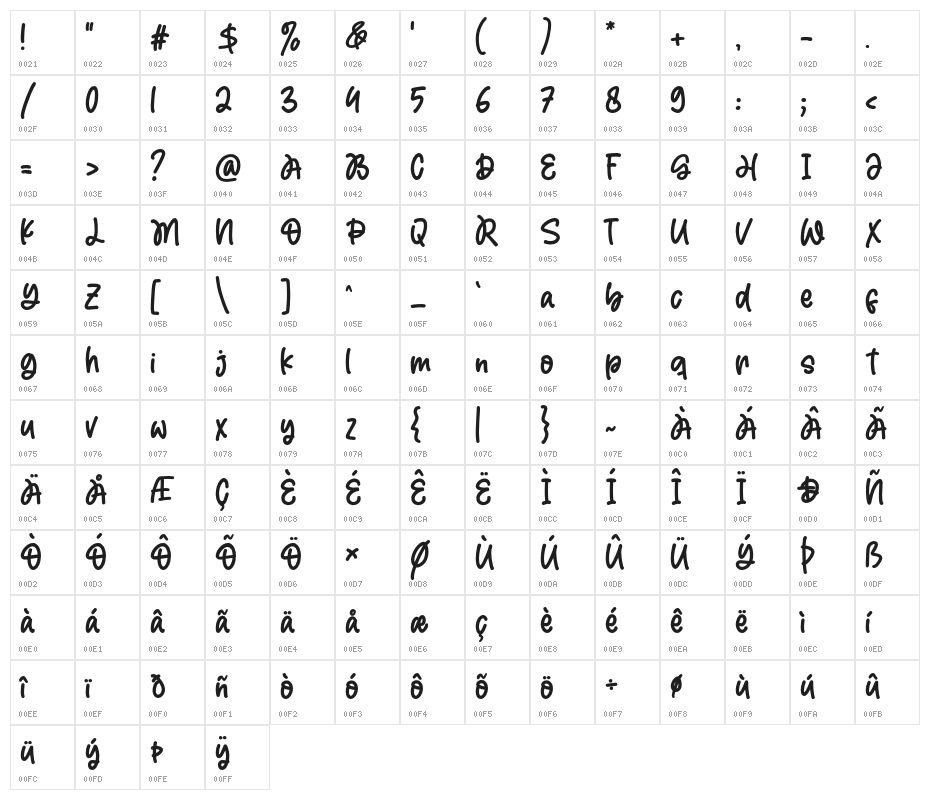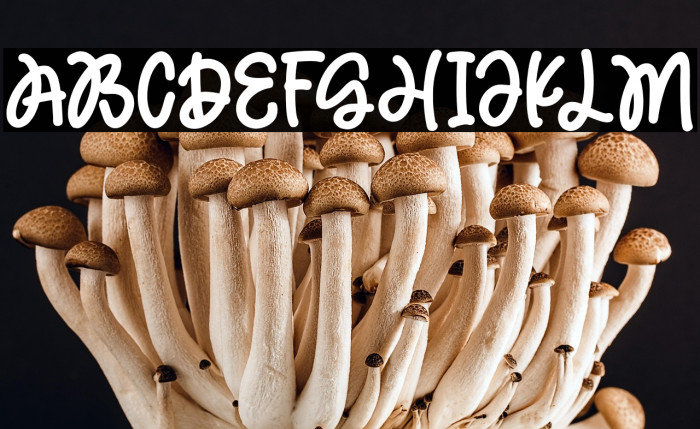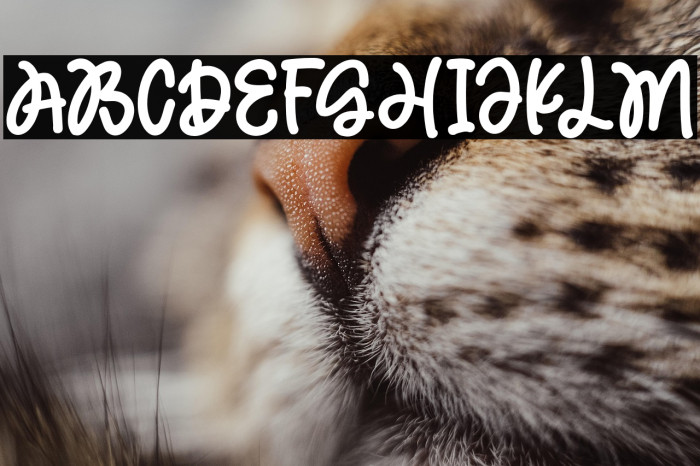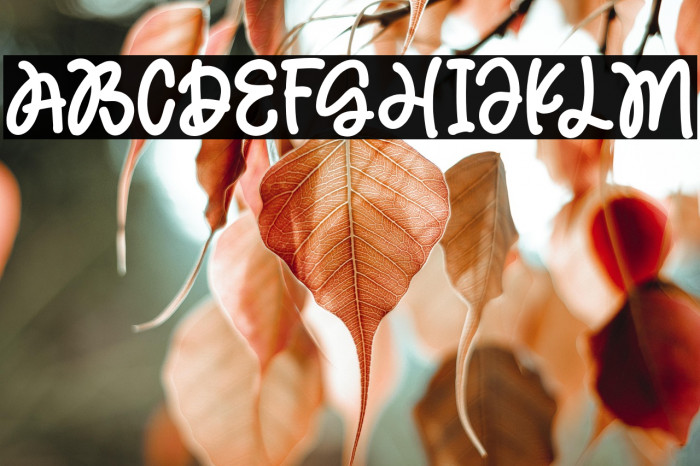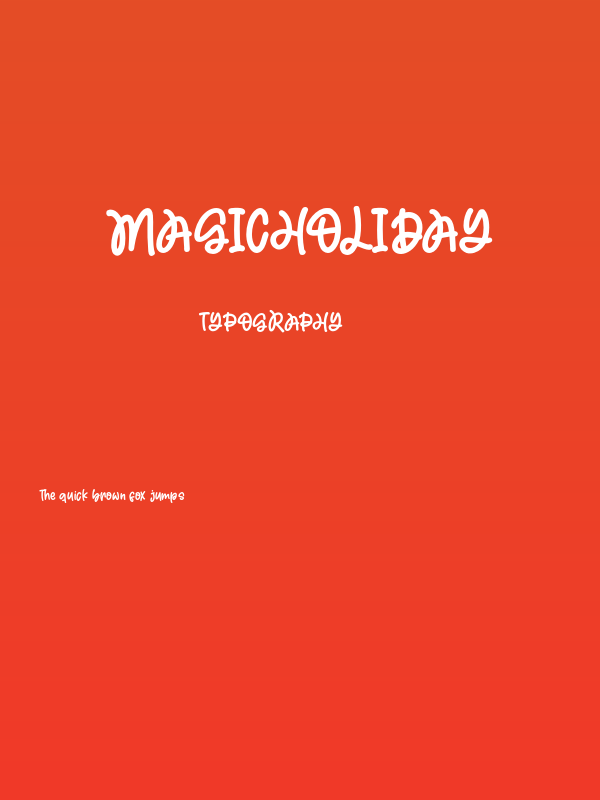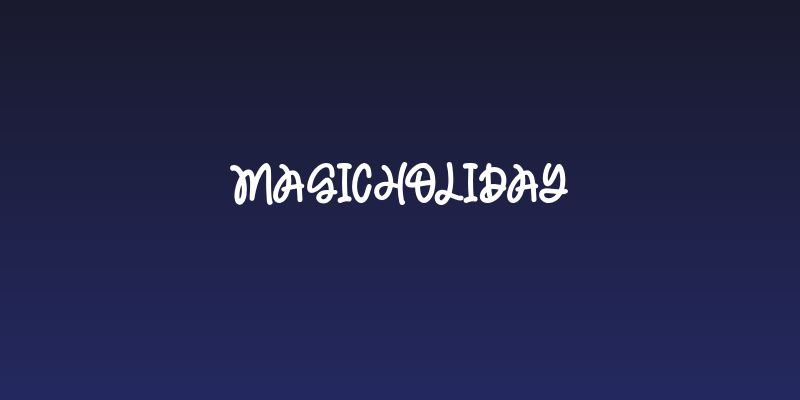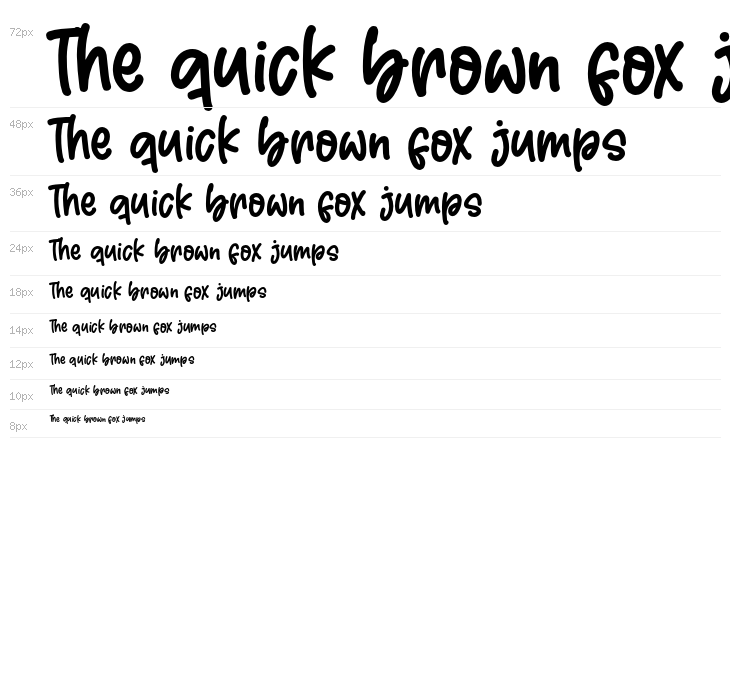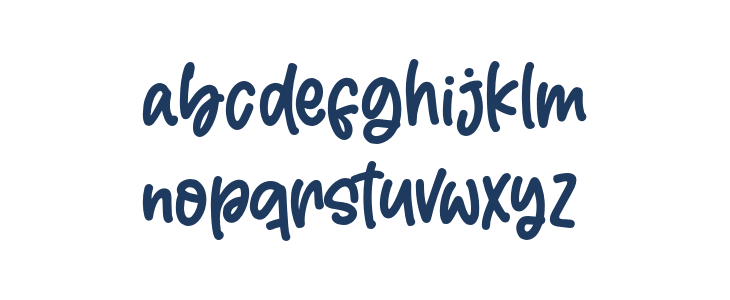
MagicHoliday Font
MagicHoliday Description
This font features a playful and whimsical handwritten style, characterized by its fluid and curvy letterforms. The strokes are bold and consistent, giving it a lively and energetic appearance. The uppercase and lowercase letters maintain a cohesive look, with rounded edges and a slight slant that adds to its casual charm. Numbers and special characters are designed with the same playful aesthetic, making it suitable for creative and informal projects. The overall design exudes a sense of fun and spontaneity, perfect for capturing attention in a friendly and approachable manner.
| Overall Style | Playful |
| Use Case | Headlines, Logos, Informal Text |
| Proposed Projects | Ideal for greeting cards, children's books, playful branding, and social media graphics. |